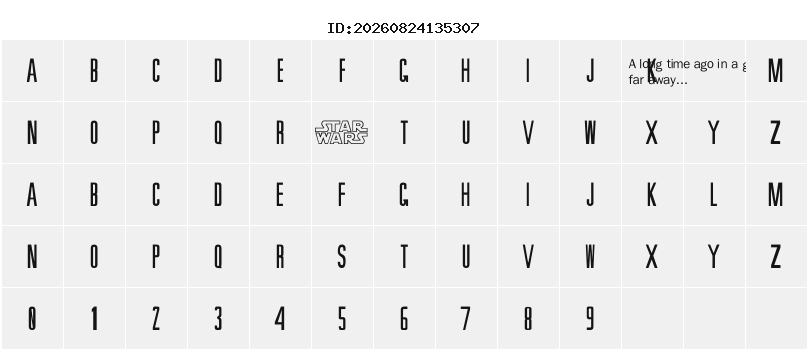
• Font Name: SW Crawl Title
About SW Crawl Title.ttf
SW Crawl Title.ttf is a modern, elegant sans-serif font designed for ultimate readability and visual harmony. Perfect for branding, headlines, web design, and print materials.